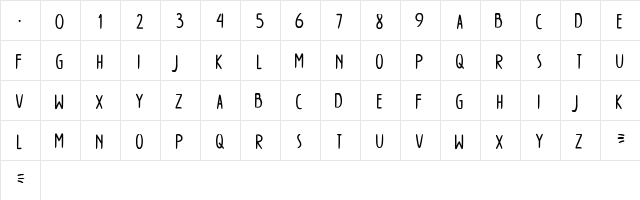
WINTERTIME Regular
| Foundry | Bagas Satriawan |
| Designer | Bagas Satriawan |
Design Context for WINTERTIME Typeface
WINTERTIME is a composed and adaptable typeface that performs quietly and consistently across a wide range of design contexts.